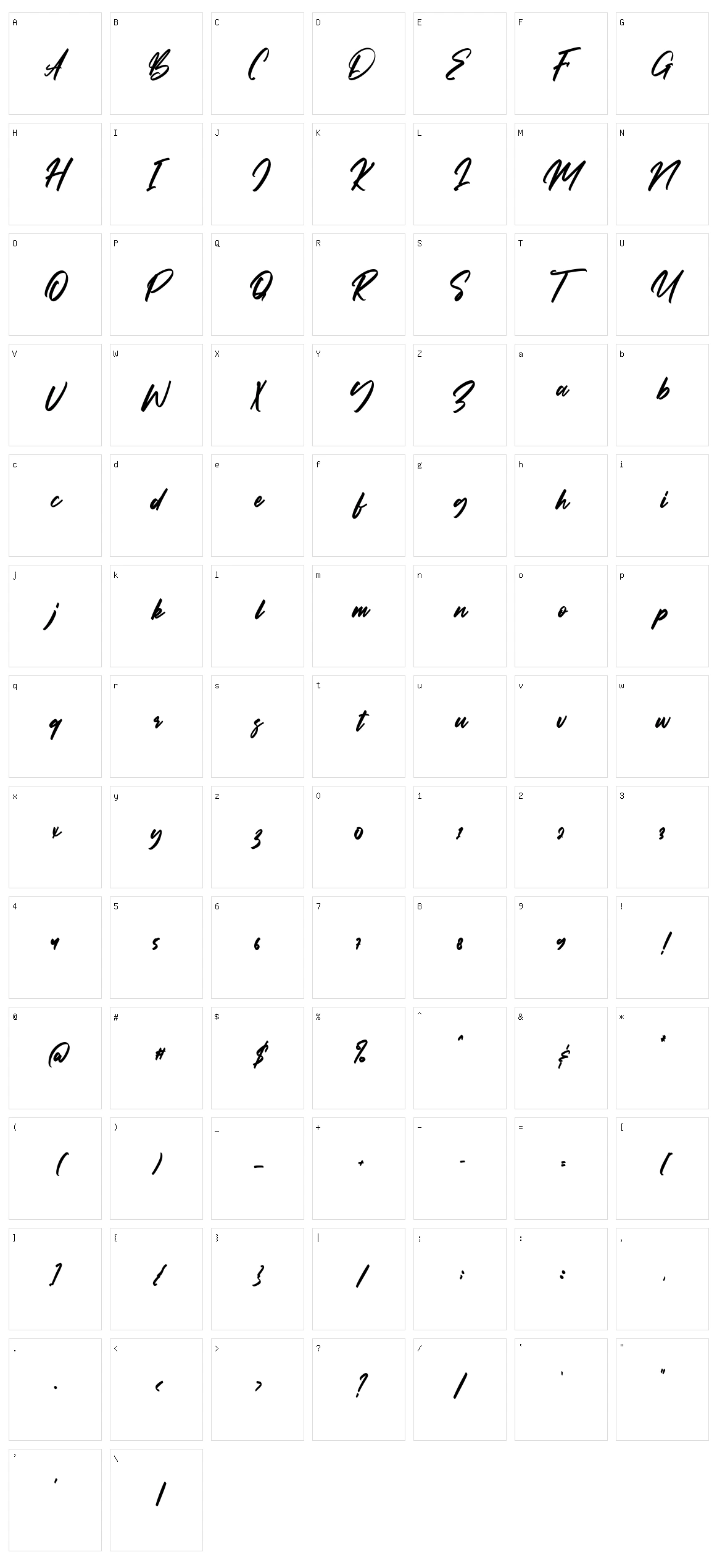
The free font Bestallie is carefully designed by StringLabs Creative Studio, showcasing a thoughtful balance of creativity and usability and falls under the Script font style. When you download the ZIP file, it contains only 70.95 KB of font files, making it lightweight and quick to download. Please review the license details below to understand permitted usage and distribution rights. If license information is not available, we recommend using this font for personal projects only or contacting the author directly for commercial usage permissions.